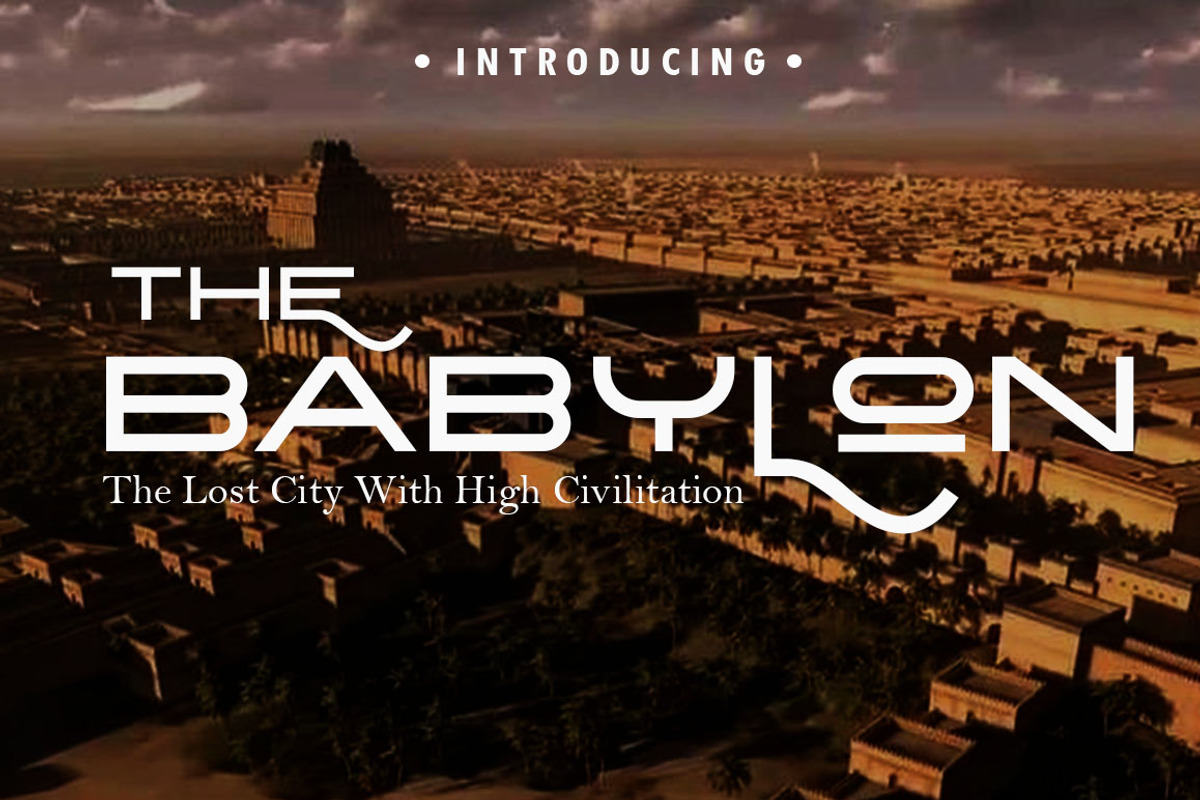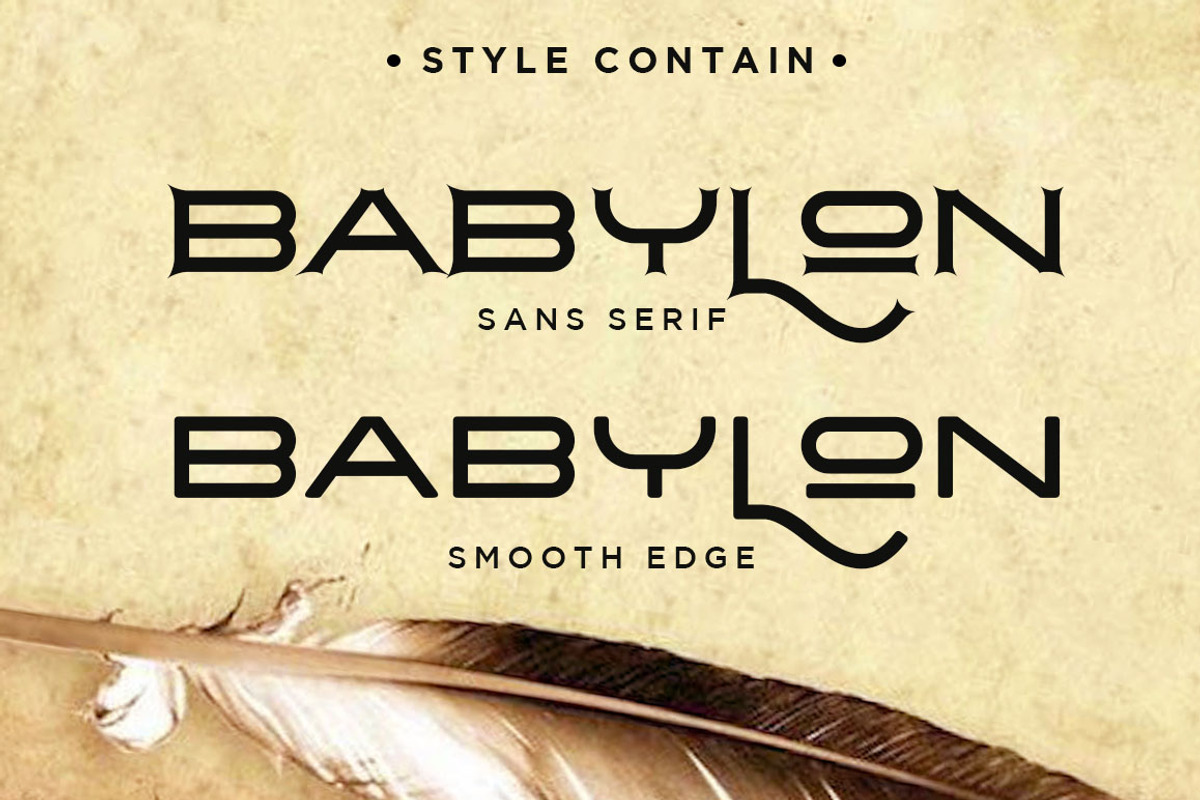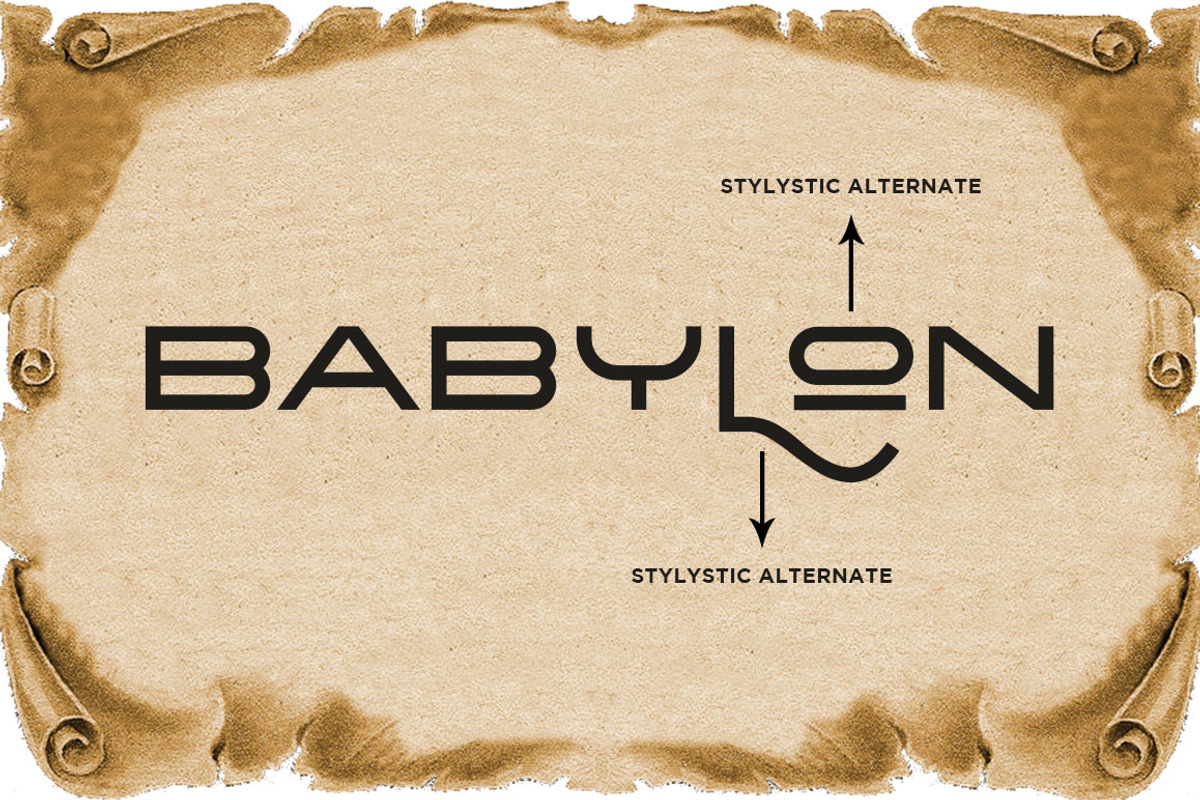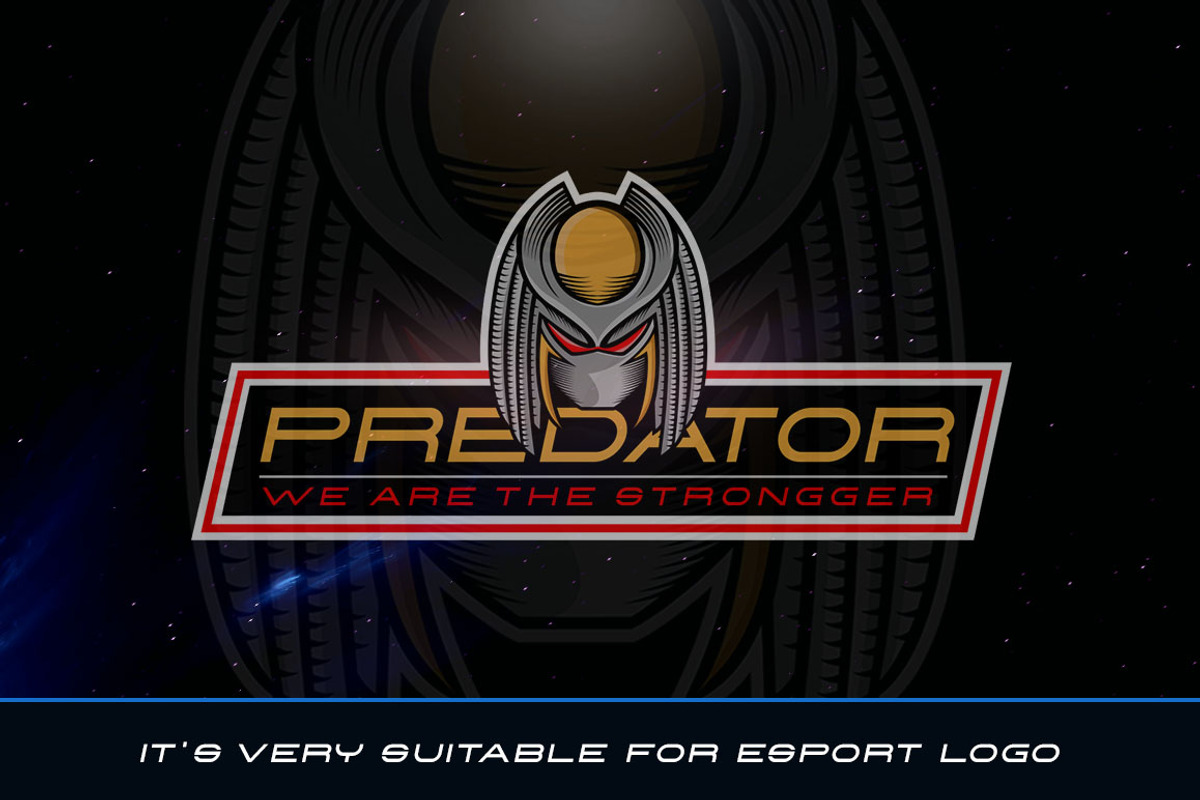
The Babylon Strong Typeface
Hey Guys! My new typeface The Babylon is a playful and elegant sans serif, perfect for branding projects, headlines, posters and packaging also for logos! Primarily it is characterized by a modern look with straight shapes, but on closer view,
A wide range of alternate characters, as well as five style typeface! Furthermore it is a unicase typeface, all of the Babylon play with uppercase initials.